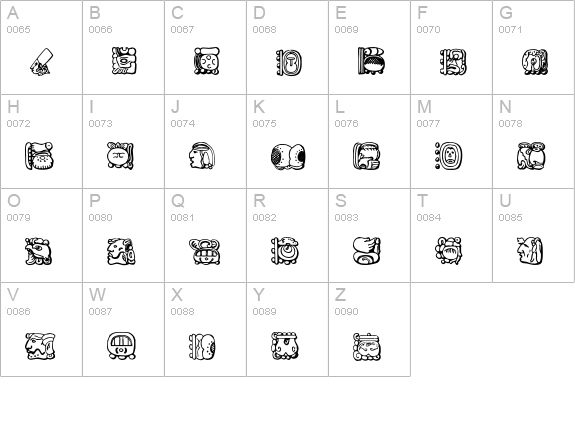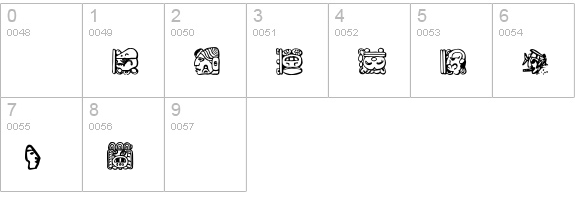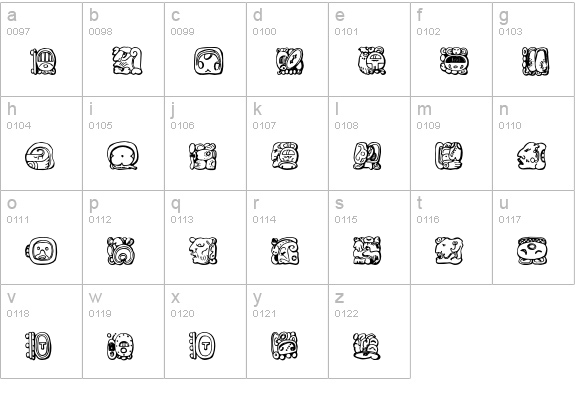
MayanDingbats Font Details
MayanDingbats font is a unique and captivating typeface inspired by the intricate designs and symbols of Mayan culture. This font features a collection of decorative dingbats that can add a touch of ancient mystery and elegance to your designs. With its rich cultural heritage and intricate details, MayanDingbats font is perfect for projects that require a touch of exotic flair. Best of all, MayanDingbats font is available for free download at FontsMarket.com. Whether you're working on a historical project, creating themed invitations, or simply looking to add a touch of sophistication to your designs, MayanDingbats font is a versatile and stylish choice. Download it today and let the magic of Mayan culture inspire your next creative endeavor.